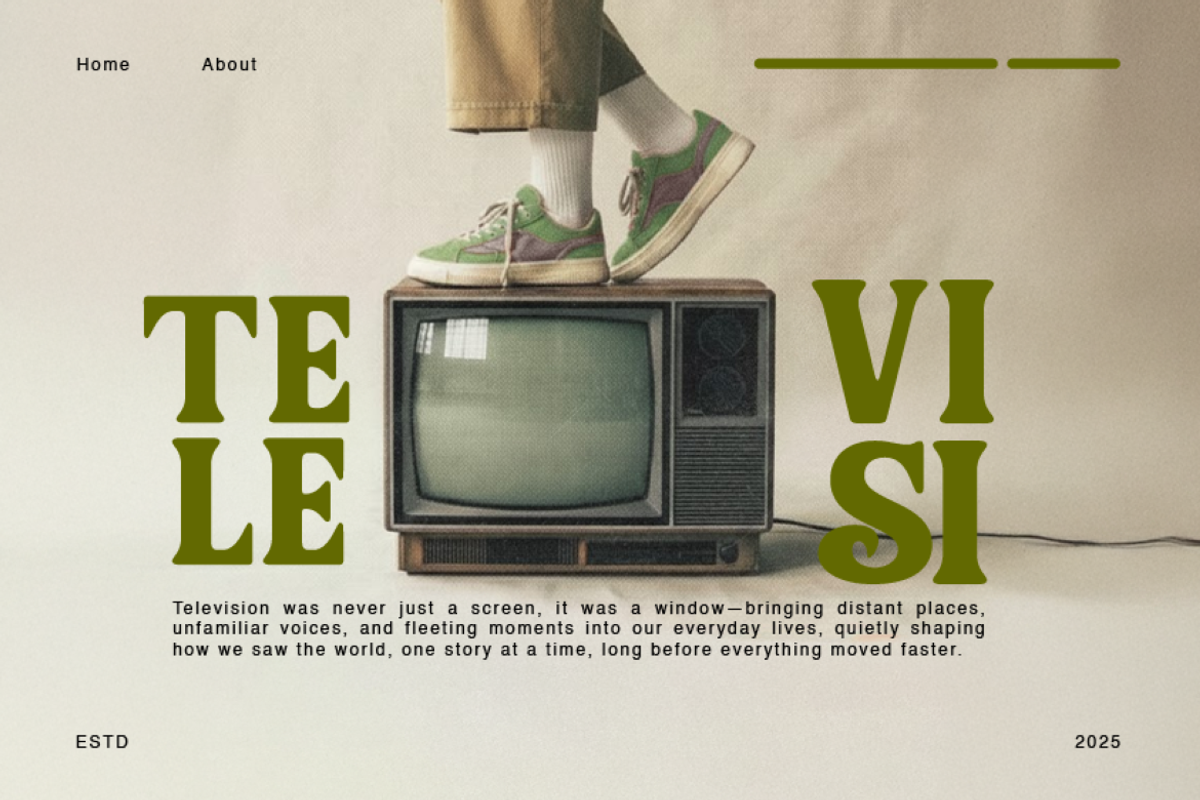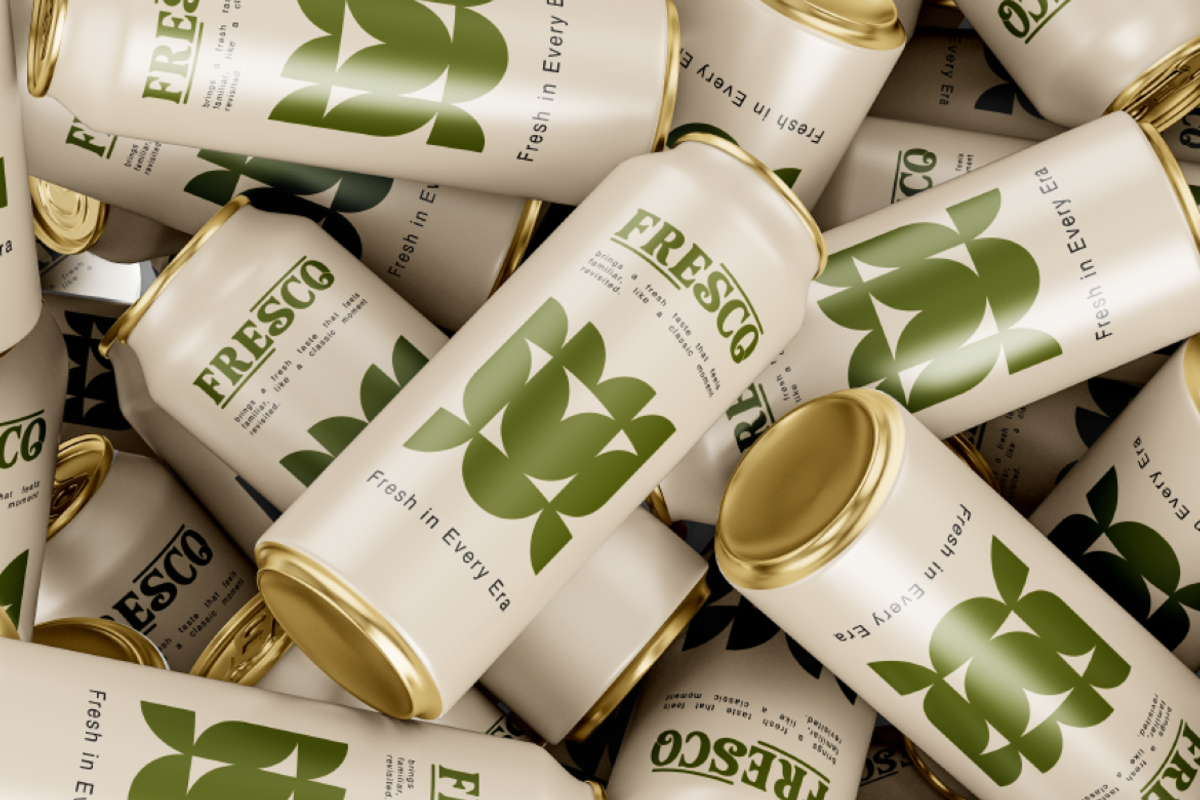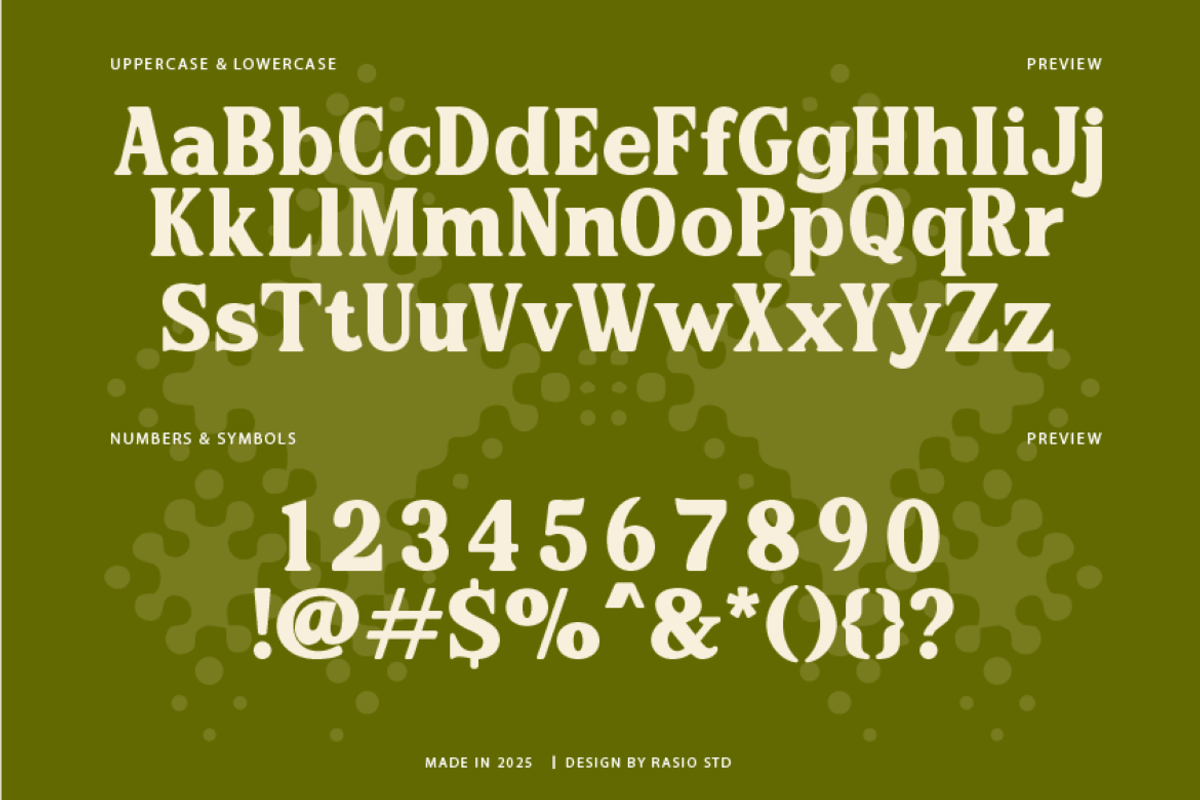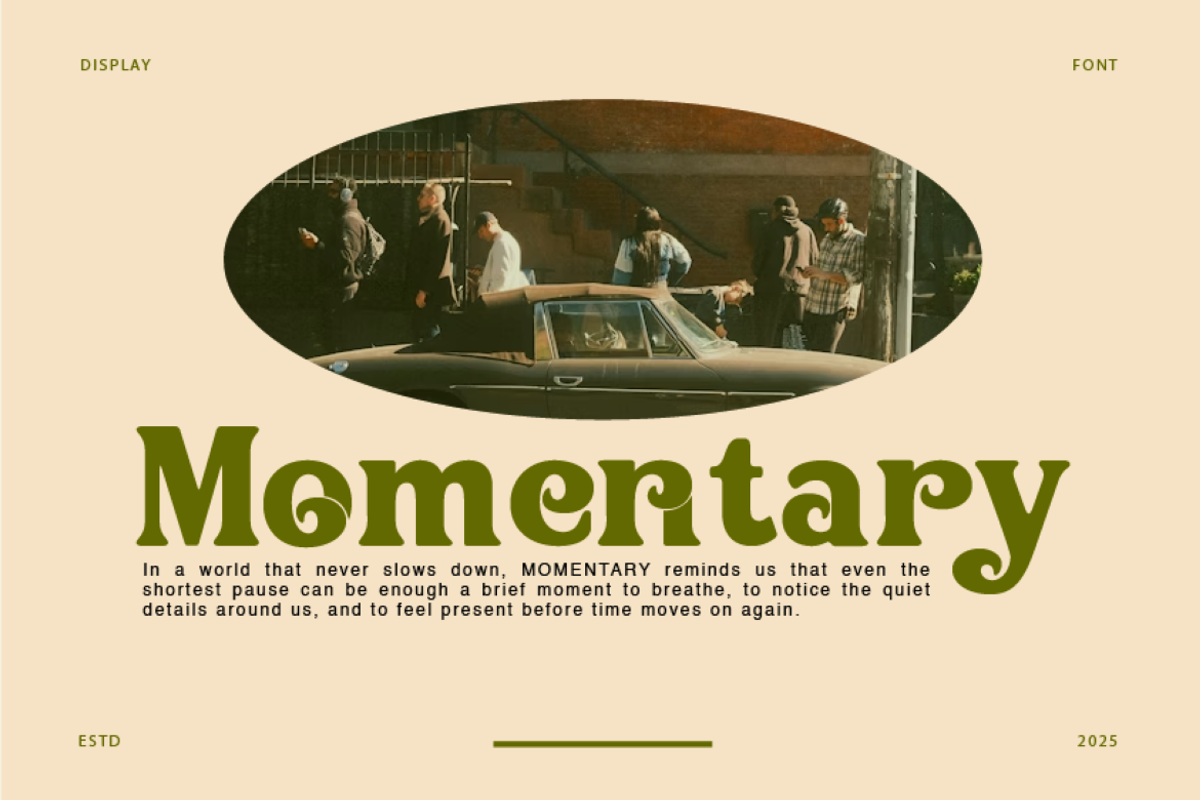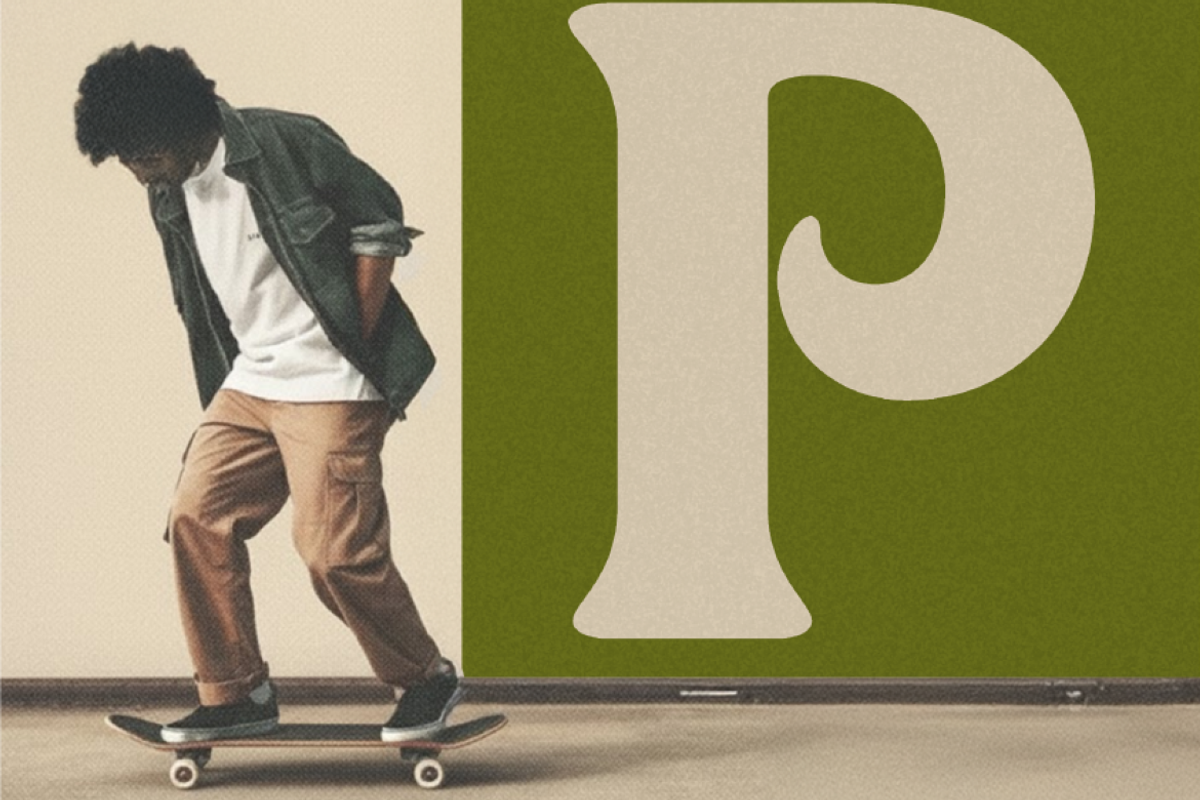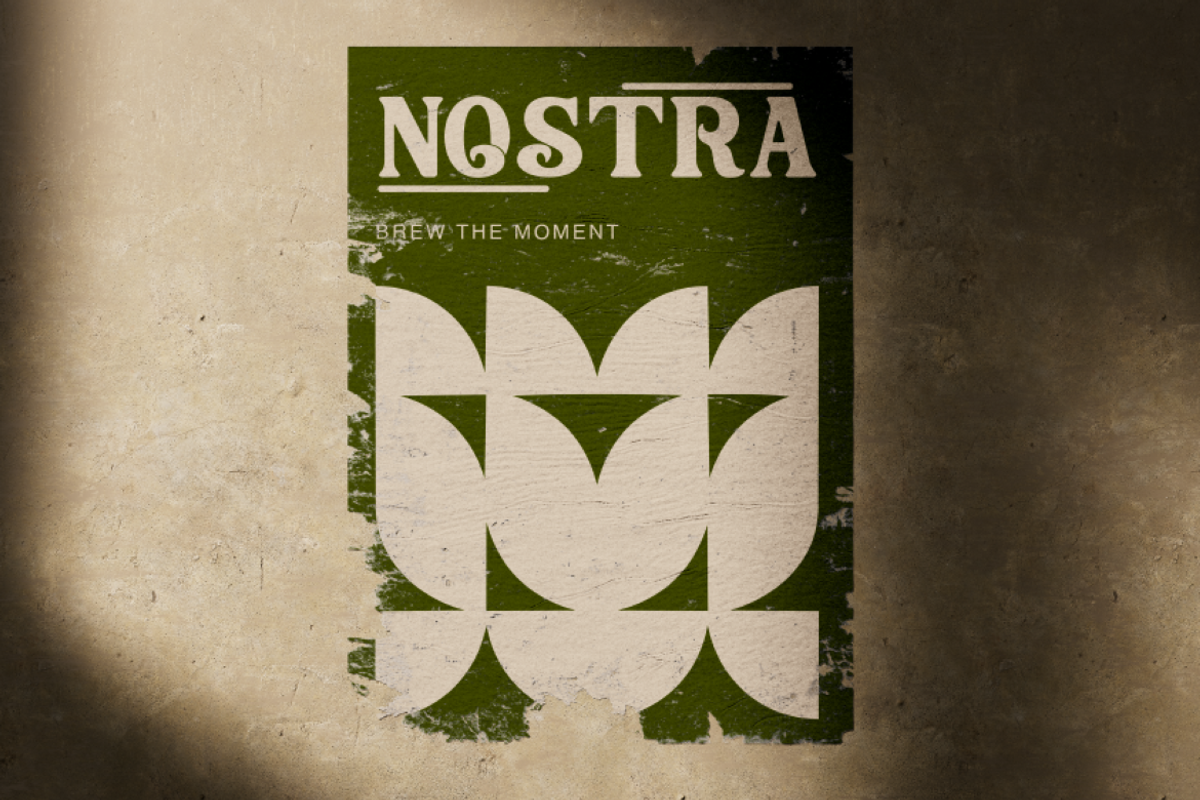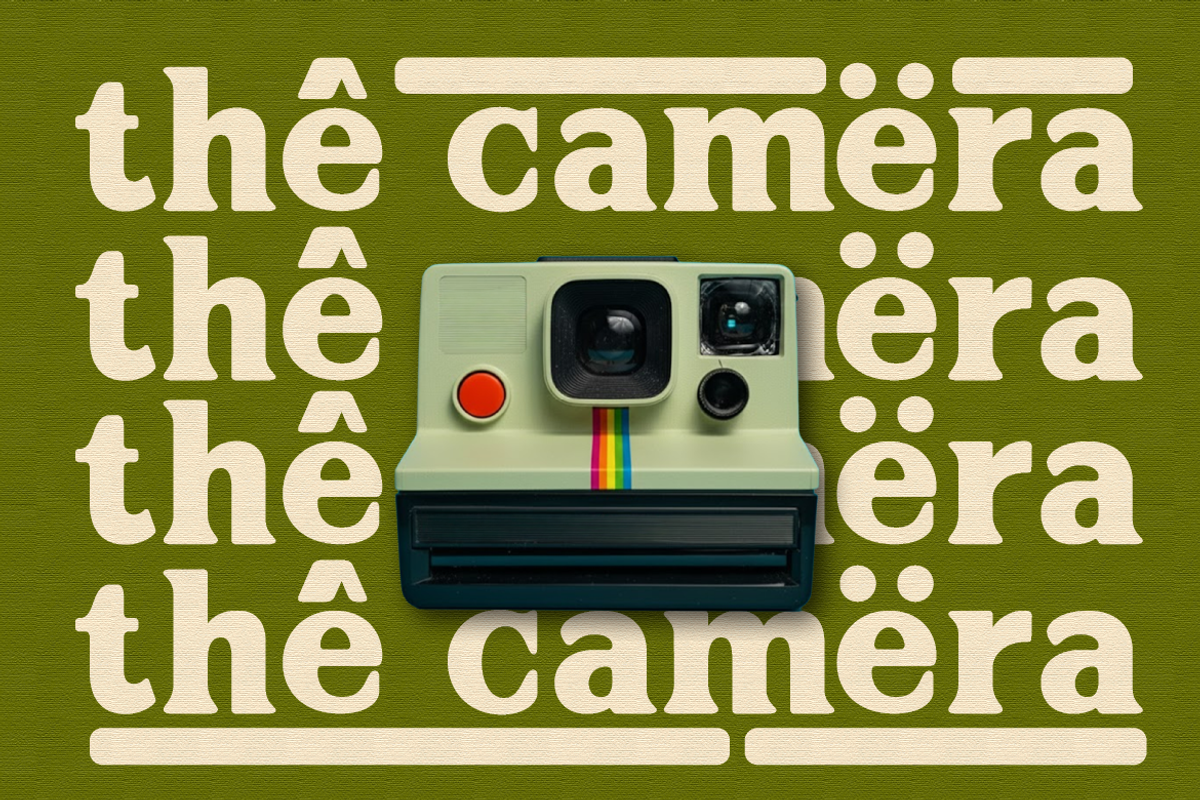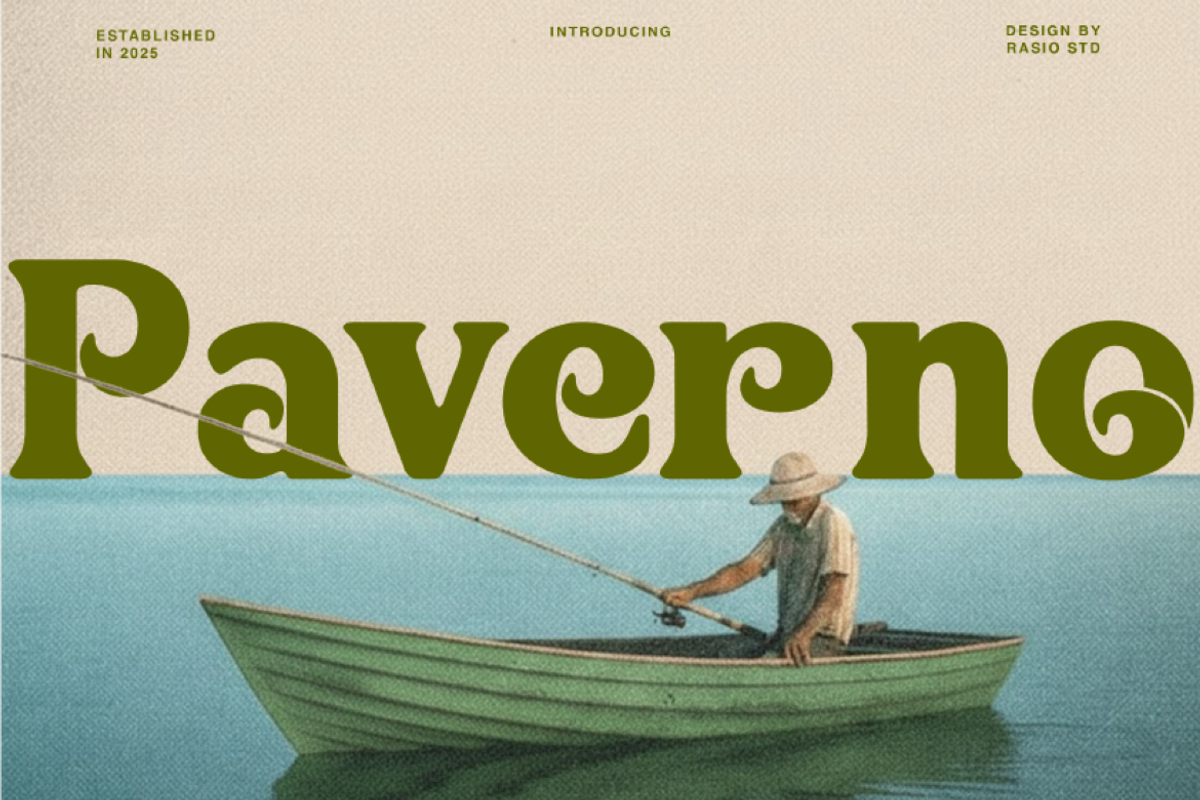
Paverno Modern Display Font
Paverno is a modern display serif font that blends retro character with contemporary elegance. The letterforms feature soft curves, expressive terminals, and distinctive serif shapes that create a warm and nostalgic typographic presence. Its balanced proportions and bold personality make it ideal for eye-catching headlines and stylish branding.
Paverno is designed for creative visual projects that require strong typographic personality and vintage charm. The bold display structure makes it perfect for editorial layouts, magazine headlines, branding identities, and creative posters. Its retro yet modern character also works well for packaging design, fashion branding, and artistic marketing visuals where distinctive typography is essential.
- Retro-inspired serif design with bold and expressive character shapes
- Soft curved terminals that add warmth and vintage personality
- Distinctive serif details creating a strong display presence
- Balanced stroke contrast for elegant and stylish headlines
- Carefully spaced letterforms for clear and impactful typography
- Brand identity and logo design with a bold retro character
- Editorial magazines, headlines, and stylish publication layouts
- Product packaging and labels with a vintage aesthetic
- Posters, album covers, and creative advertising visuals
- Social media graphics and marketing materials with strong typography